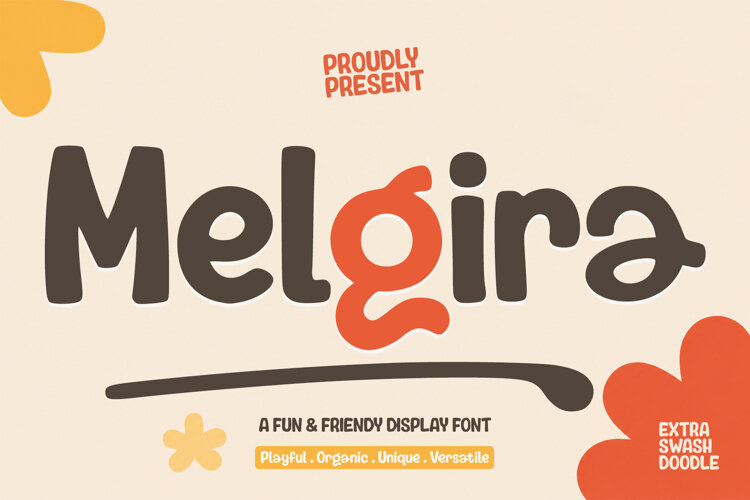
Introducing Melgira, a bold and playful display font with a charming handmade character. Featuring soft, rounded, and organic letterforms, Melgira combines smooth curves with expressive shapes to create a warm, friendly, and distinctive look.
Melgira comes with extra swashes and playful doodles, giving you more creative possibilities for building unique and eye-catching compositions. The decorative swashes add movement and personality, while the doodle elements bring an extra touch of fun and handmade charm to your designs.
Versatile and easy to customize, Melgira is perfect for T-shirts and apparel, logos, branding, posters, packaging, labels, stickers, greeting cards, invitations, children’s designs, social media graphics, and other creative projects.
With its bold yet approachable appearance, Melgira brings a fresh organic feel to your typography while adding plenty of character to every design.